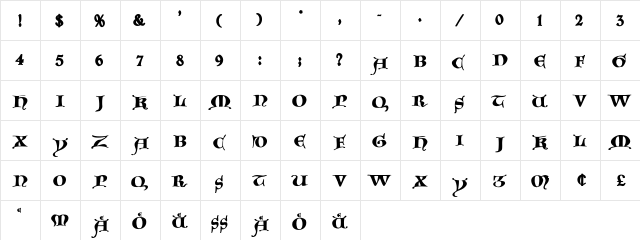
GoticaCaps Regular
Design Context for GoticaCaps Typeface
GoticaCaps is a composed and adaptable typeface that performs quietly and consistently across a wide range of design contexts.